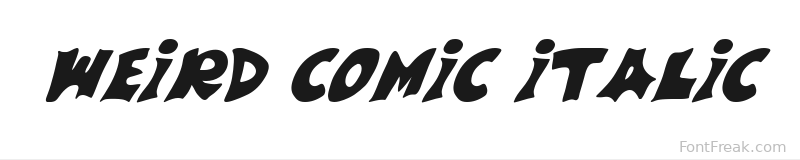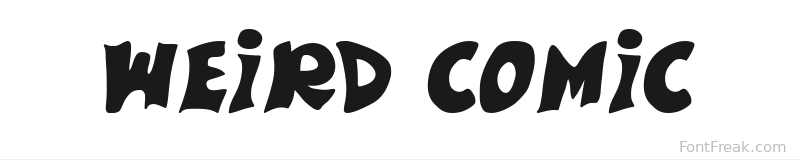
Weird Comic
Weird Comic Italic
About Weird Comic
The Weird Comic font by GGBot is a distinctive display typeface that captures the essence of playful, unconventional design. As a decorative font, it features a quirky, irregular style that evokes a sense of fun and whimsy. The strokes are bold and uneven, giving it a hand-drawn appearance that is both engaging and memorable. The overall contrast is moderate, with a consistent stroke weight that contributes to its readability while still maintaining an artistic flair. The spacing is generous, ensuring that each letter stands out without feeling cramped, which enhances its visual impact.
Ideal for a variety of creative projects, Weird Comic shines in contexts that call for a lighthearted touch. It is perfect for comic book covers, where its unique character can draw readers in. Additionally, it works wonderfully for children's book titles, infusing a sense of adventure and imagination. The font is also suitable for promotional materials for events like festivals or fairs, where an eye-catching design is crucial. Graphic designers will find it useful for creating posters that require a humorous or offbeat vibe, while small business owners can leverage its charm for branding purposes, such as logos or social media graphics.